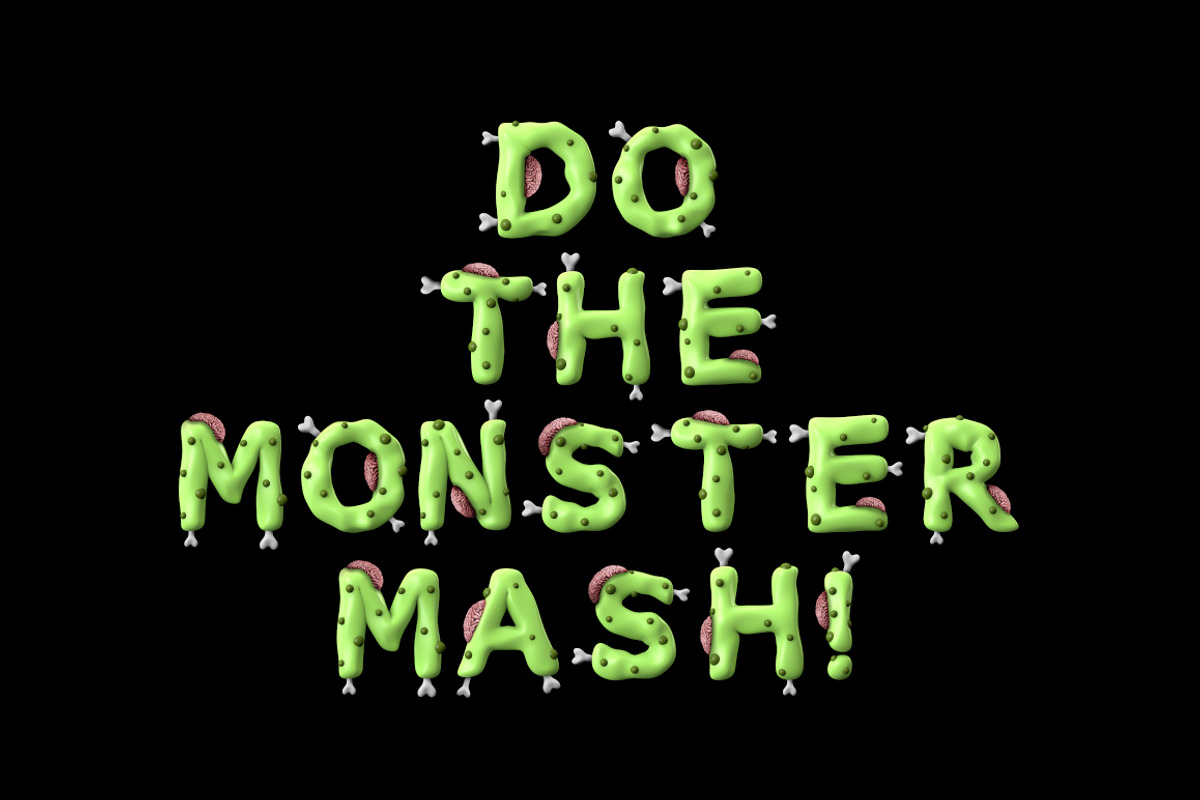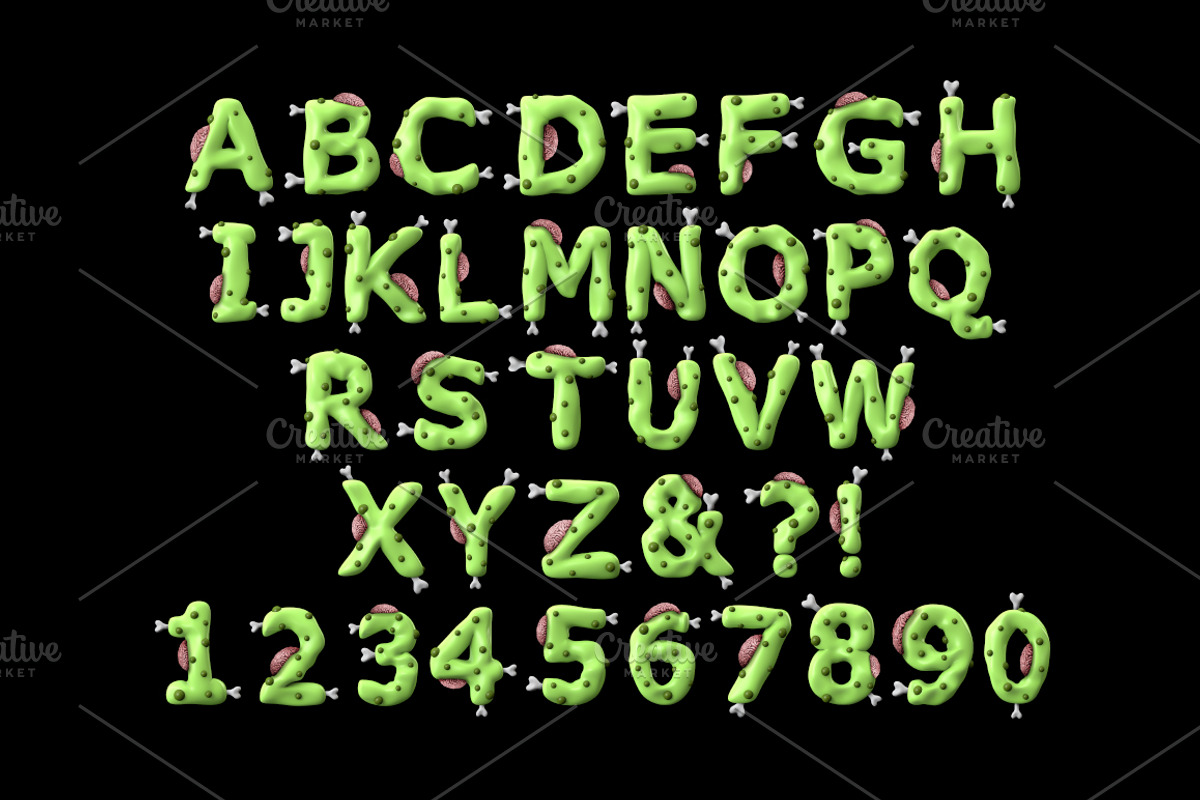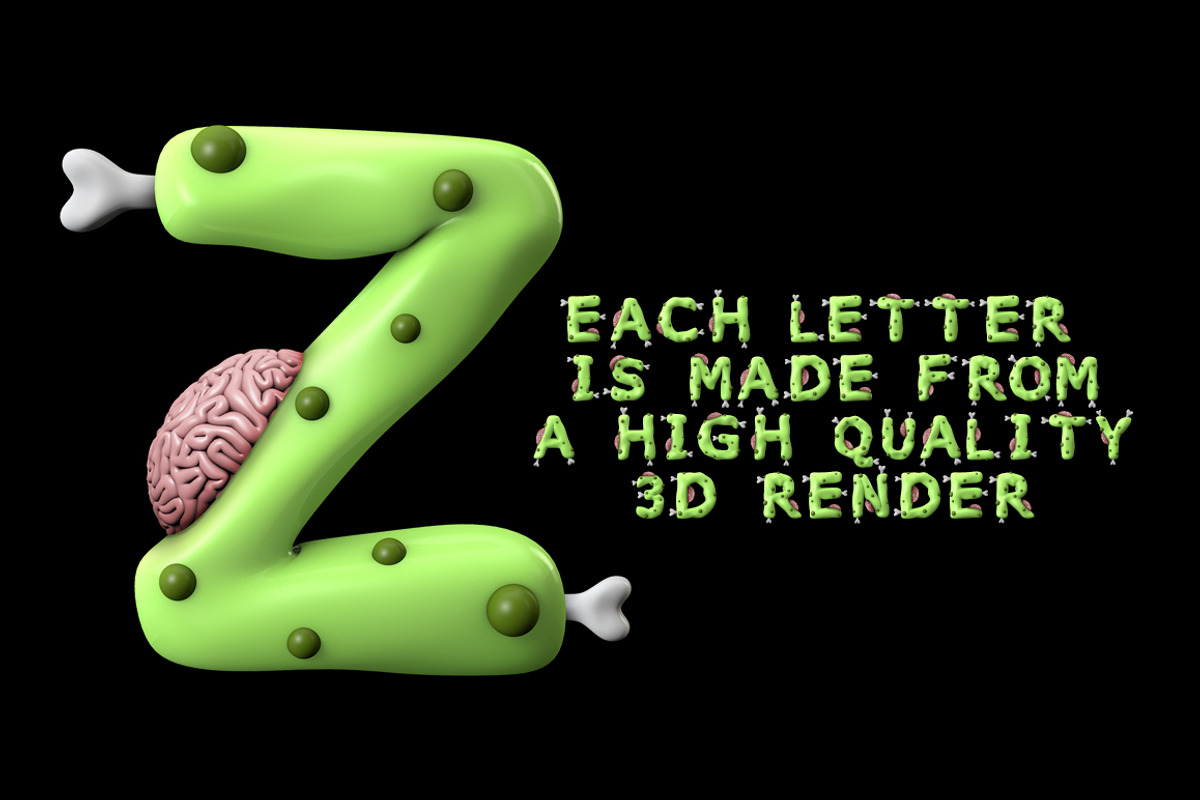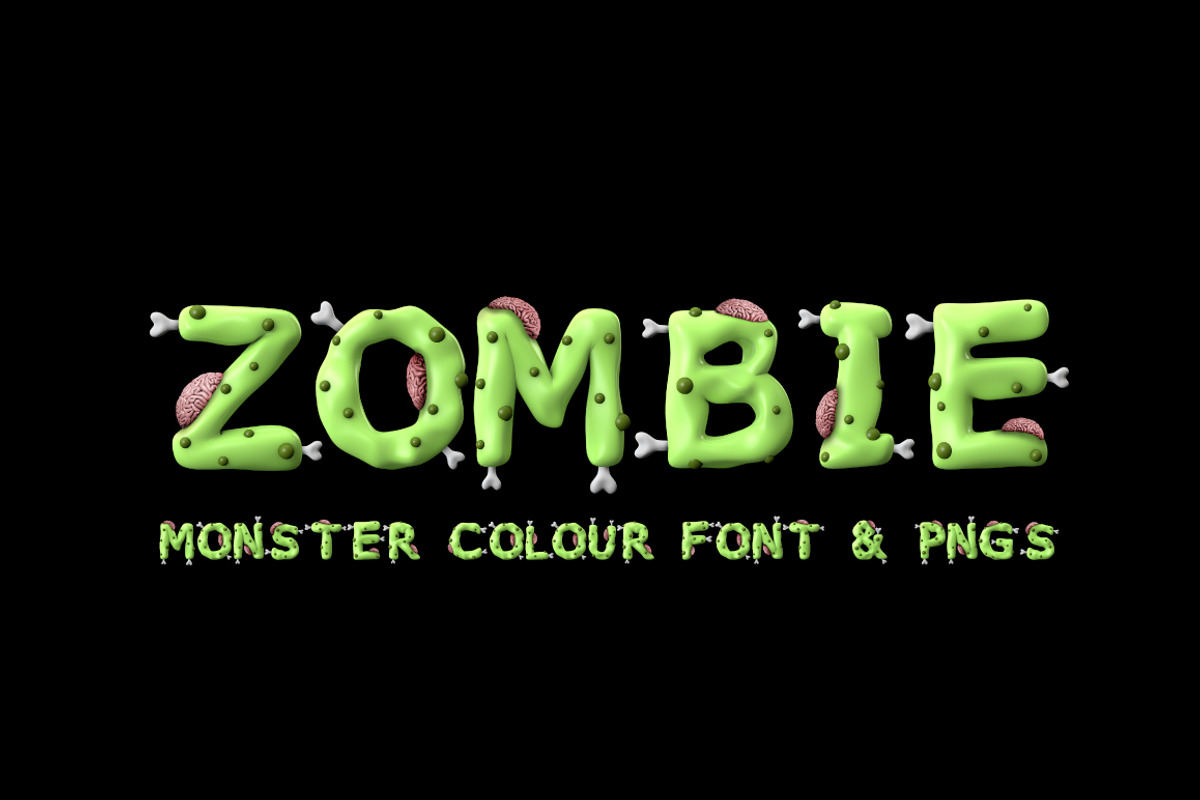
Zombie colour font
ARRRGGHHH ZOMBIES!!!!!
Zombie is a colour OTF font. Each letter has been created in 3D then turned into a simple to use font. Just download and start typing in bold zombie monster lettering. Great for halloween posters and party invites